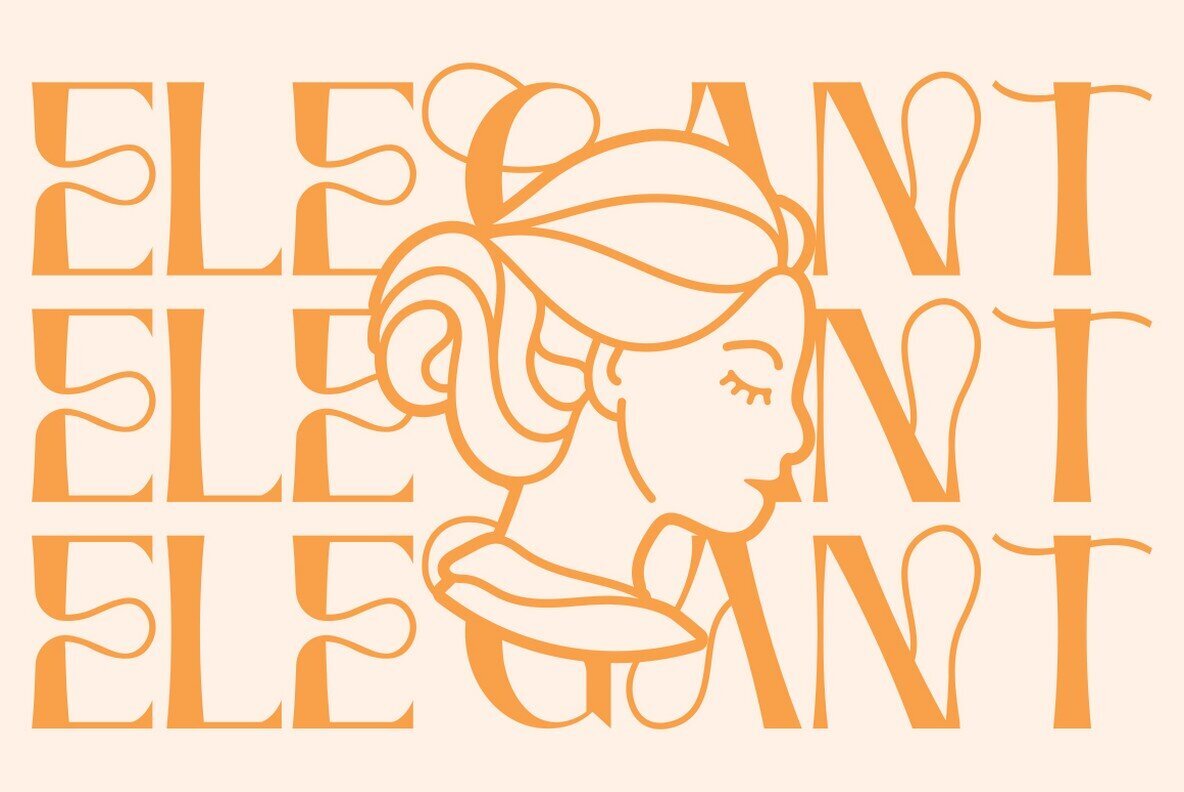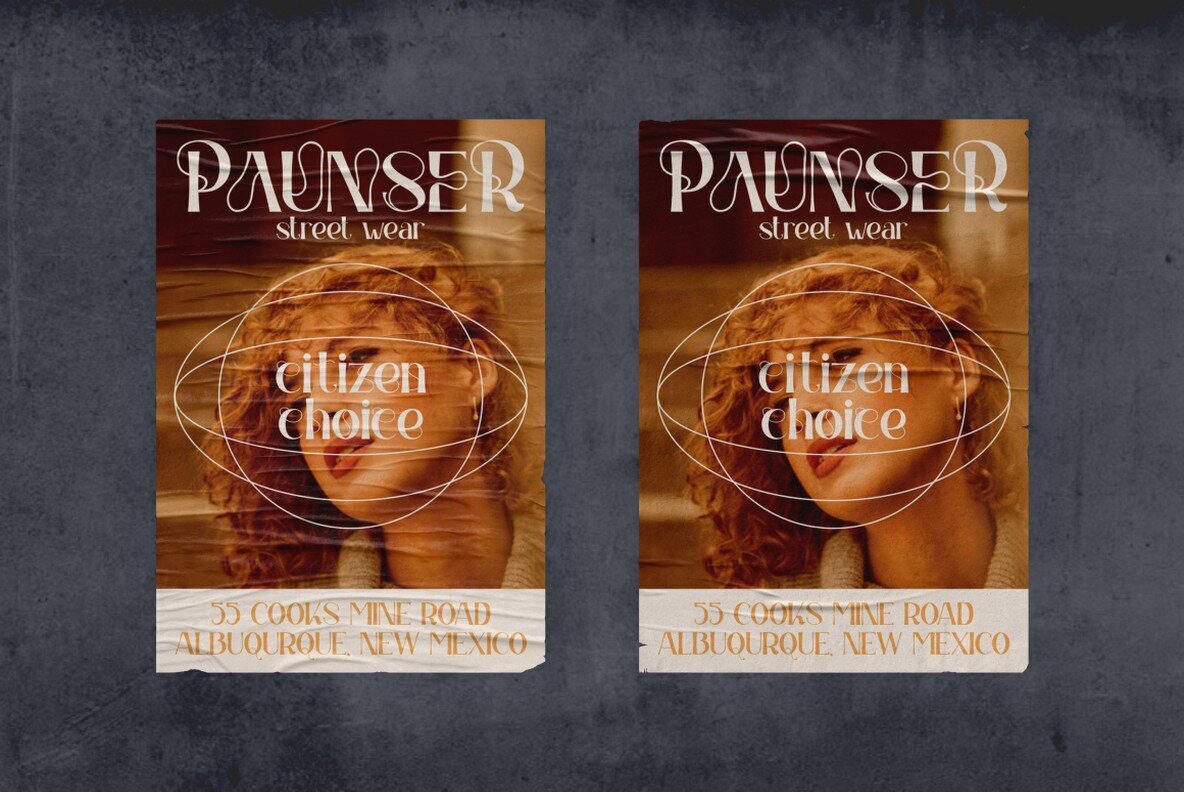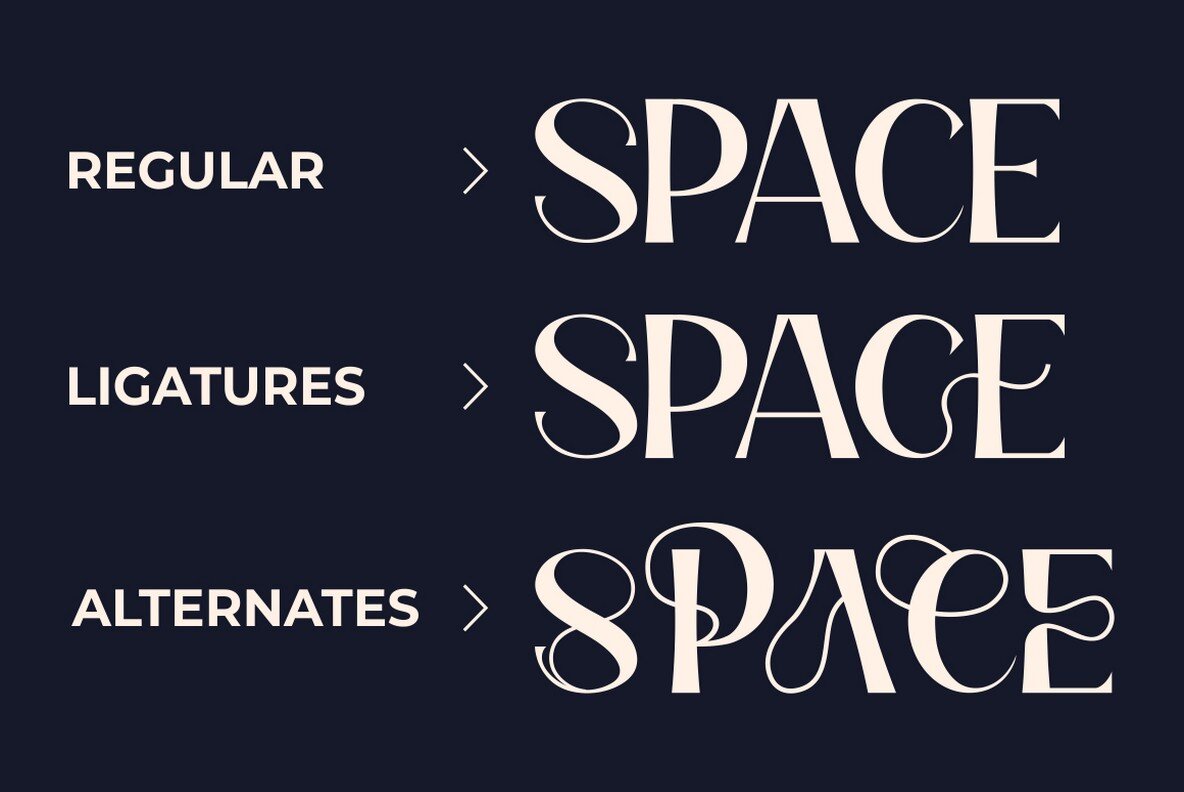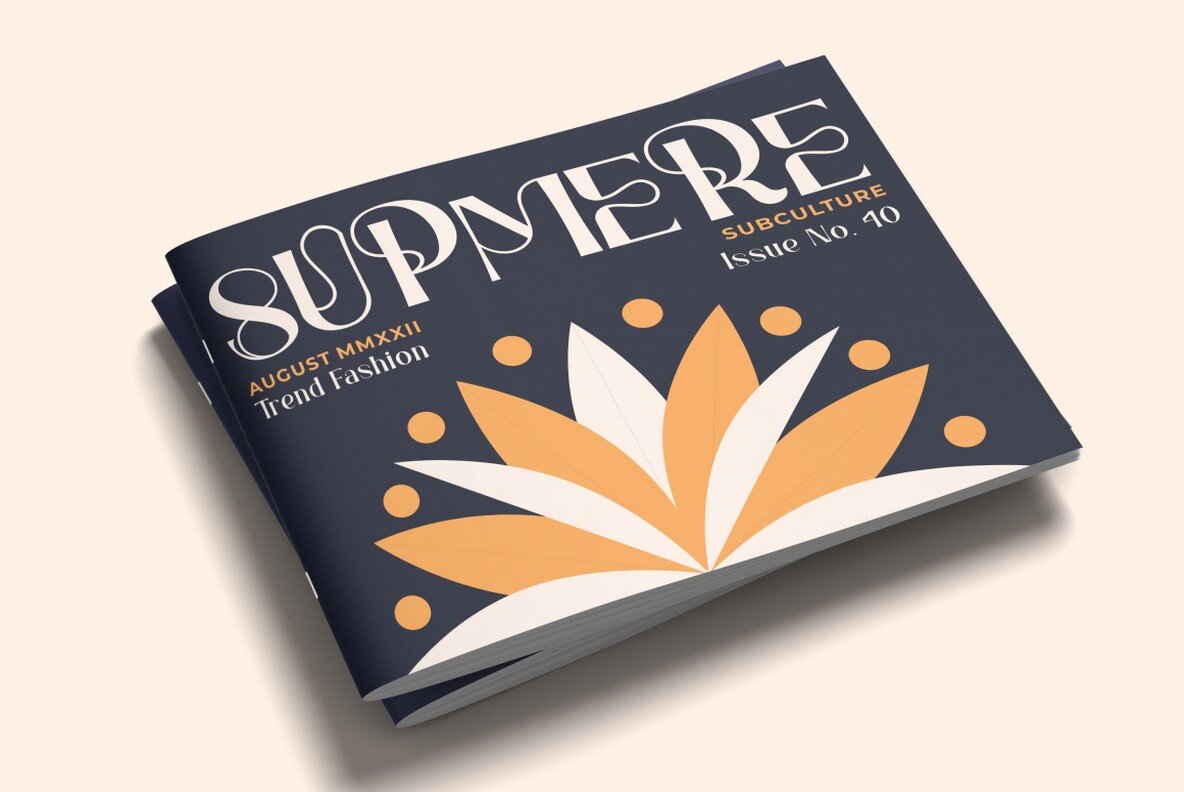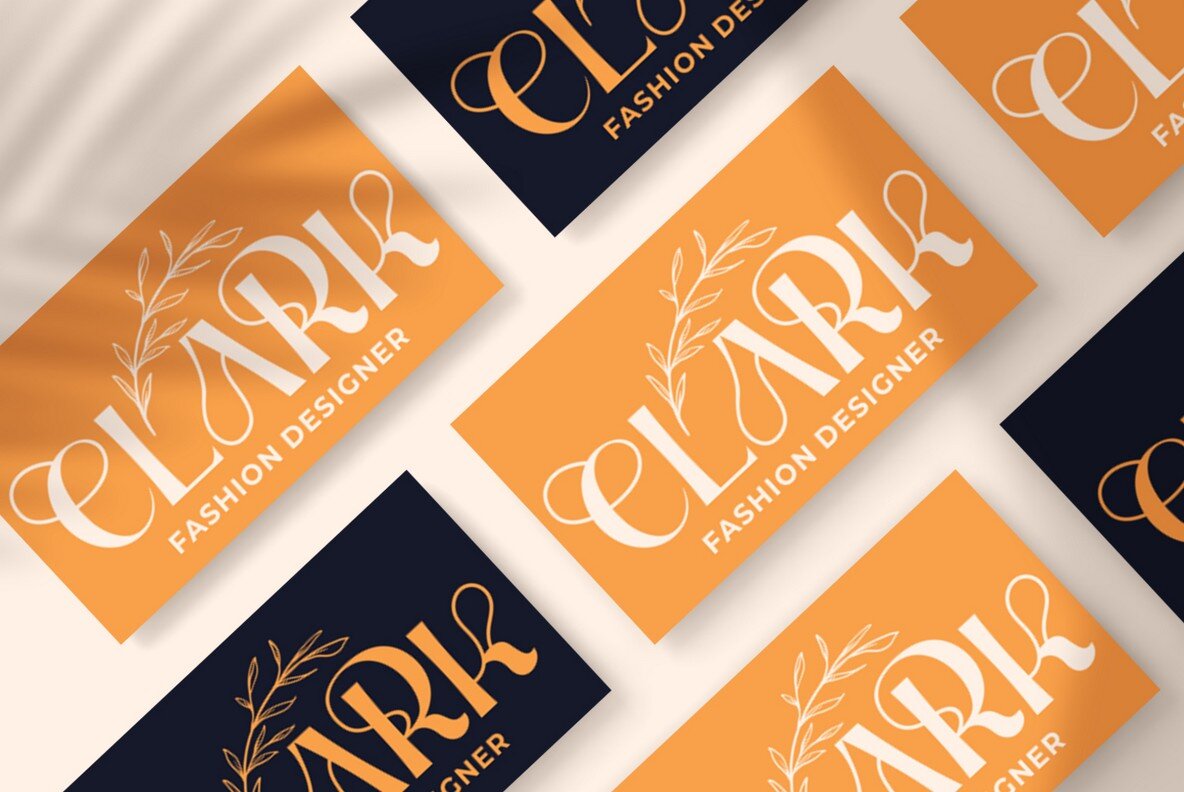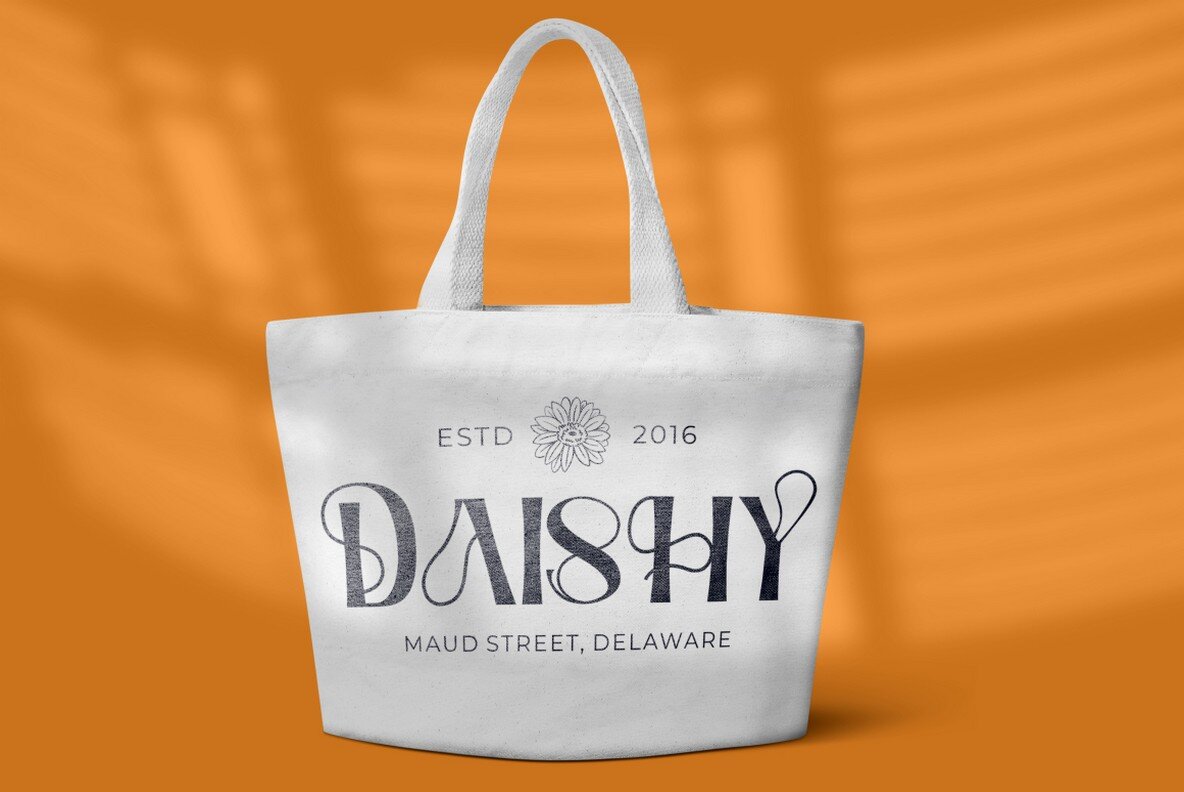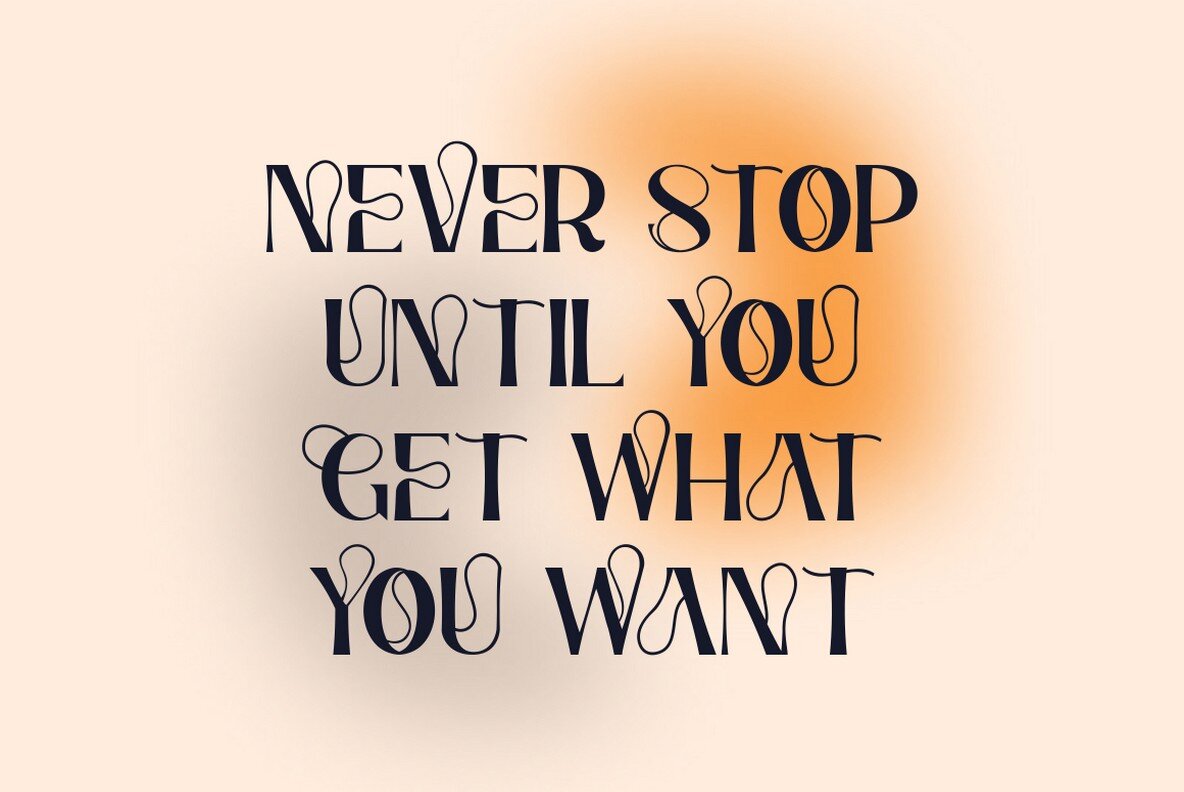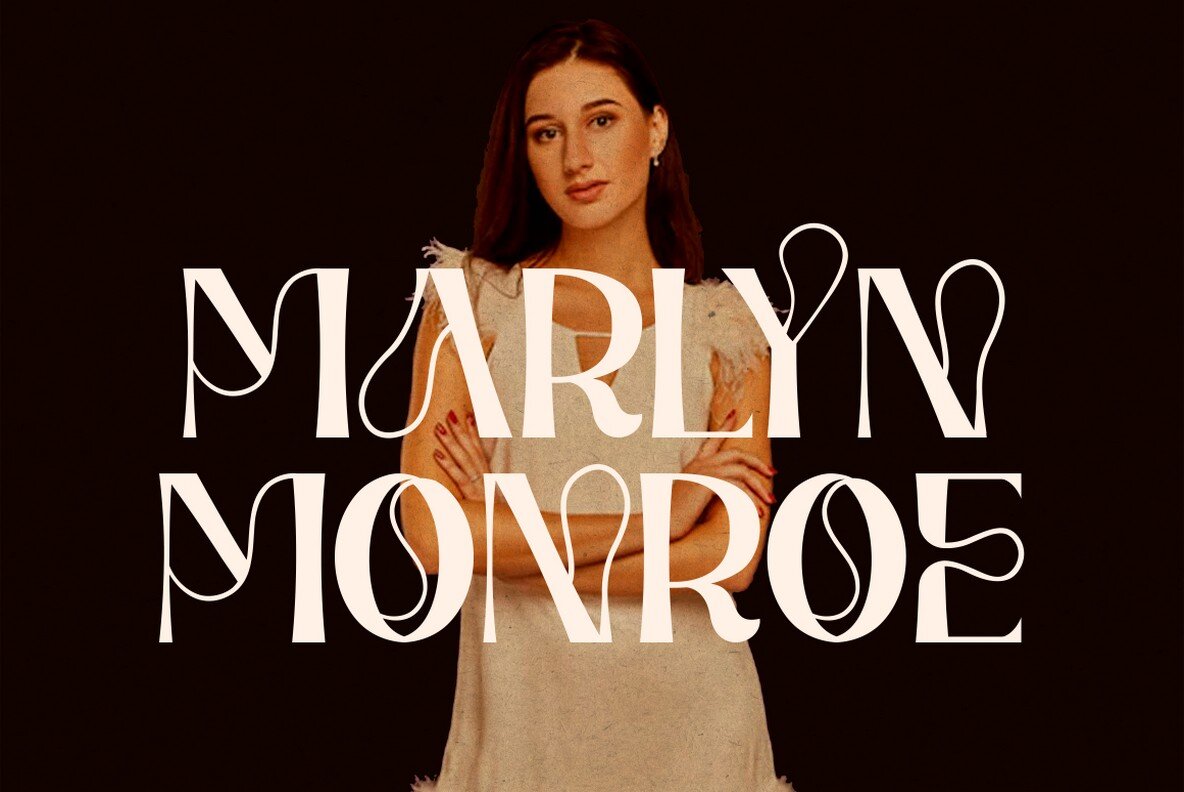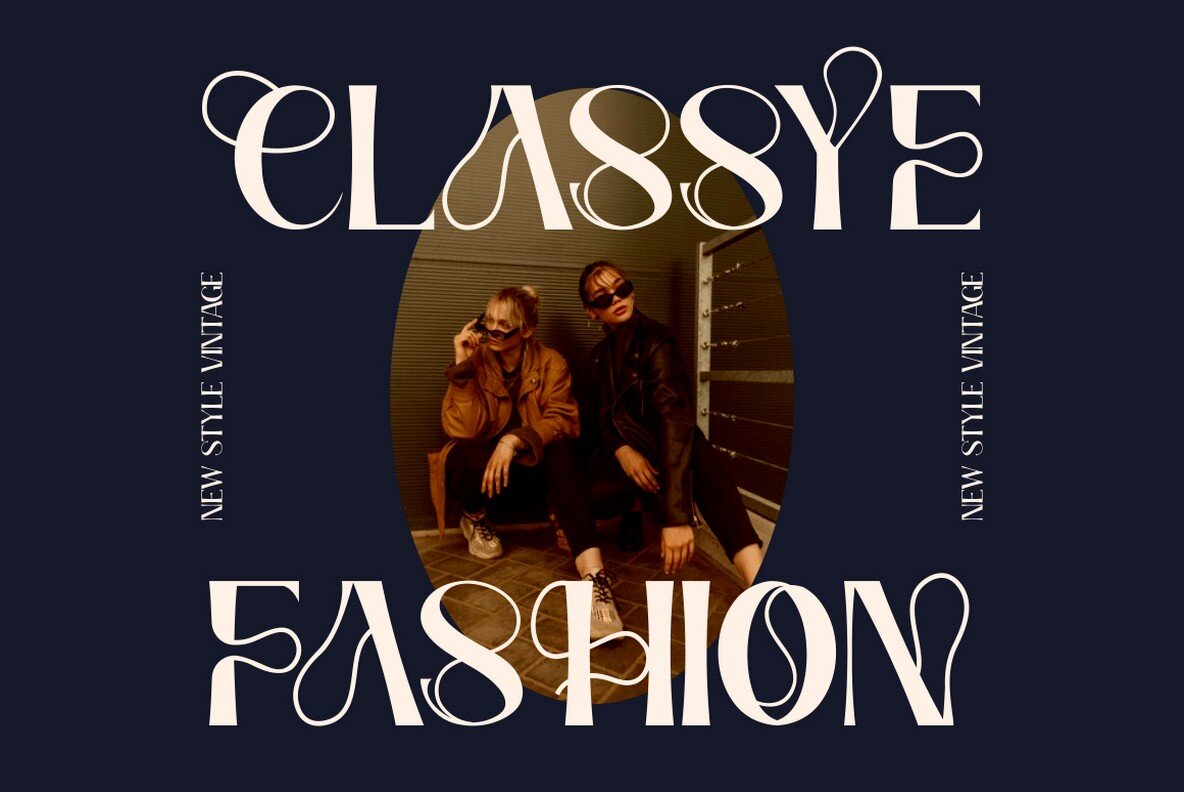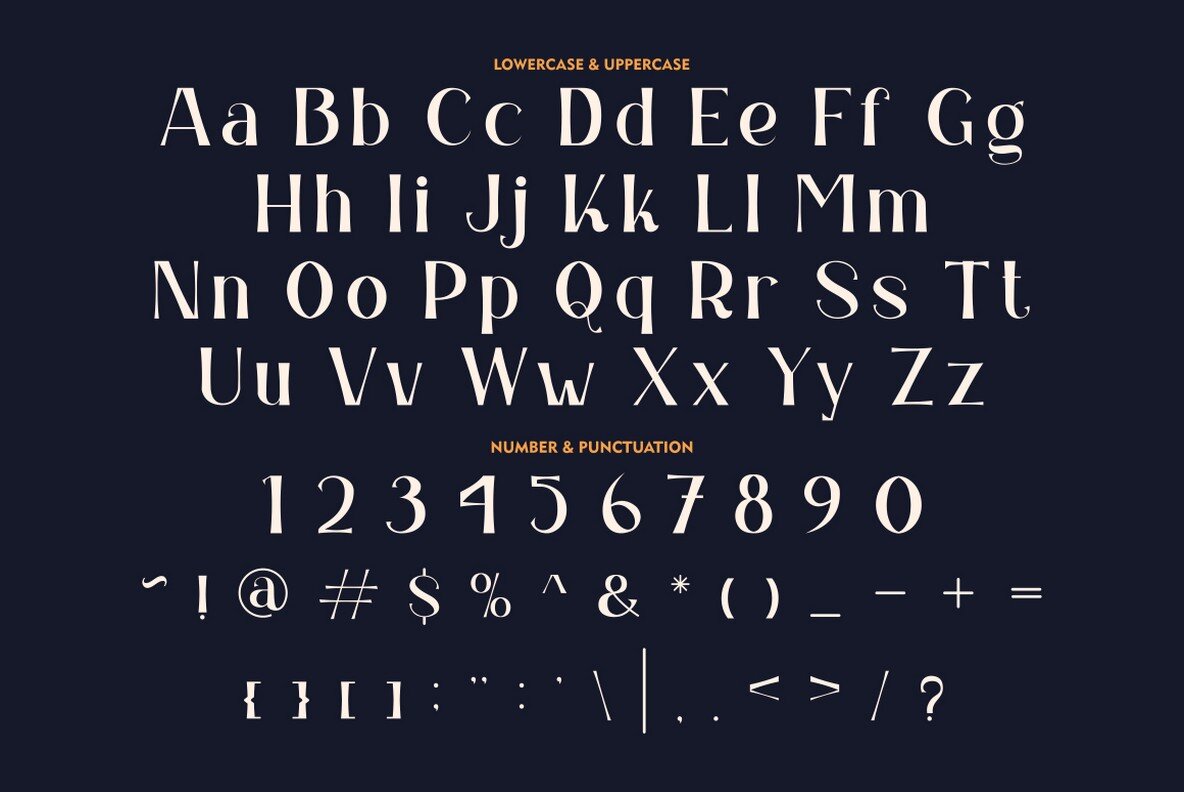
Zambeza Font
Zambeza
Inspired by modern typography and vintage poster aesthetics, Zambeza seamlessly blends classic design elements with an elegant style. This versatile display font offers an array of letter combinations, making it an attractive choice for various design needs. Features: To fully utilize the alternate glyphs provided by Zambeza, software that supports OpenType features such as Adobe Illustrator, Photoshop, Indesign, or Corel Draw is recommended. Engage your audience with Zambeza’s sophisticated yet modern design capabilities.Zambeza: A Modern Display Font for Creative Projects